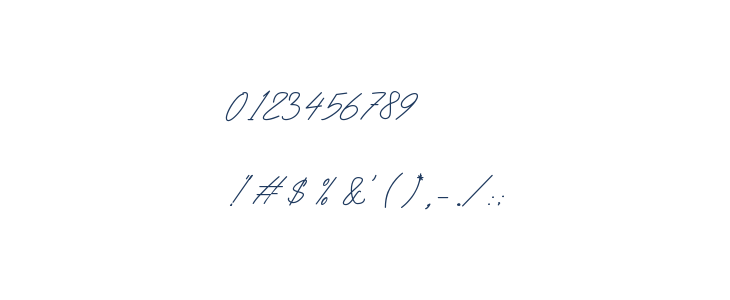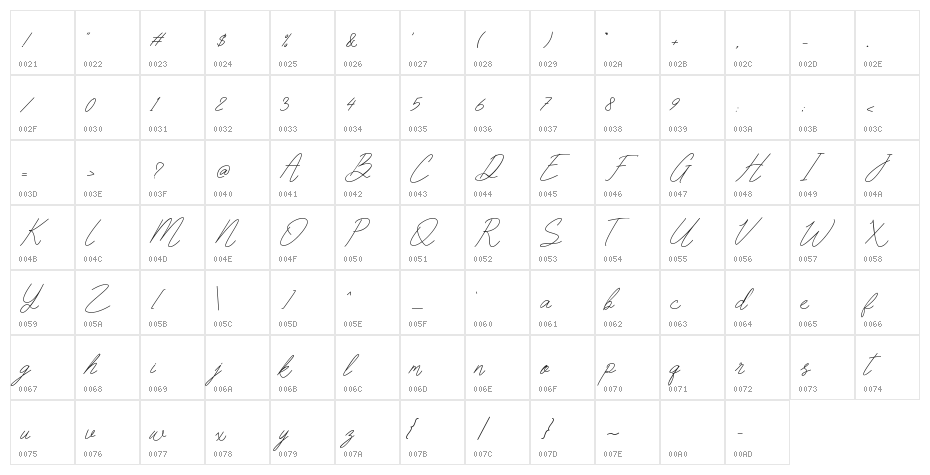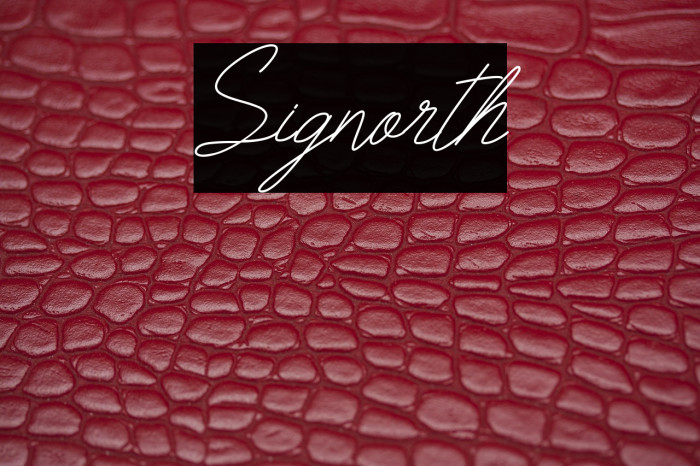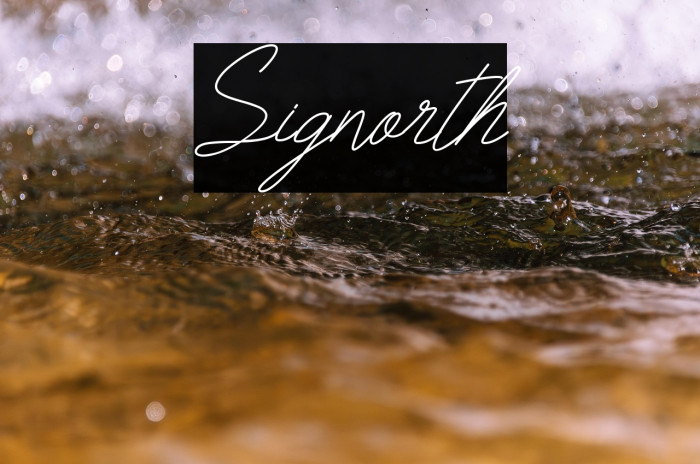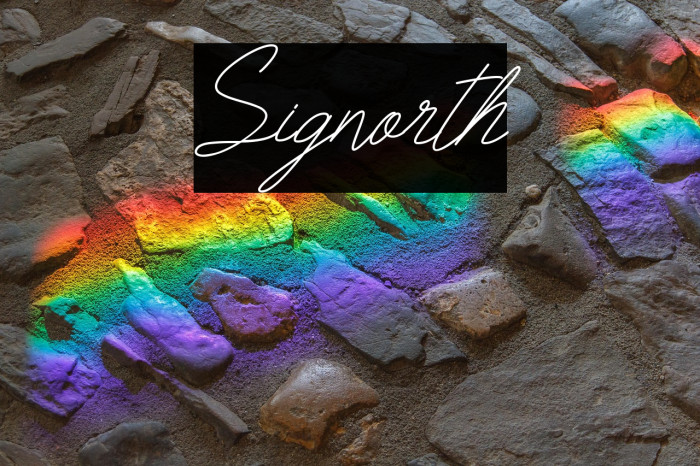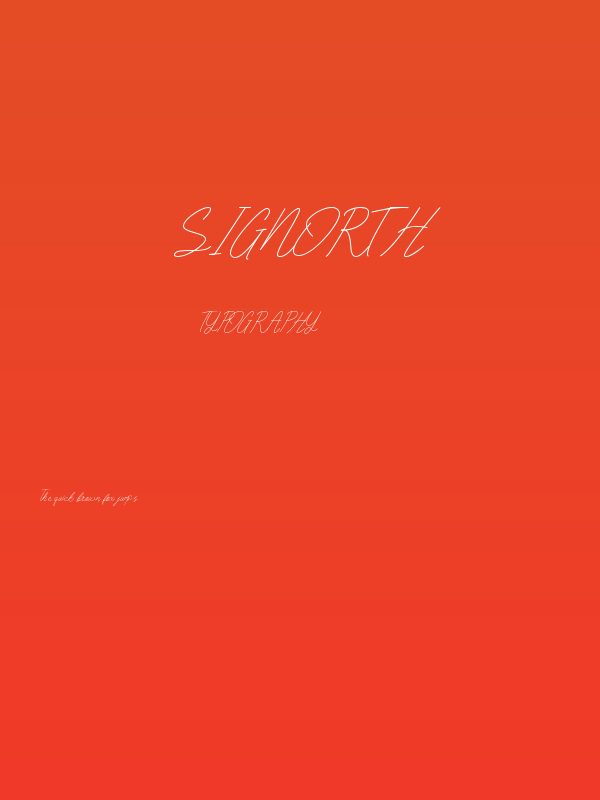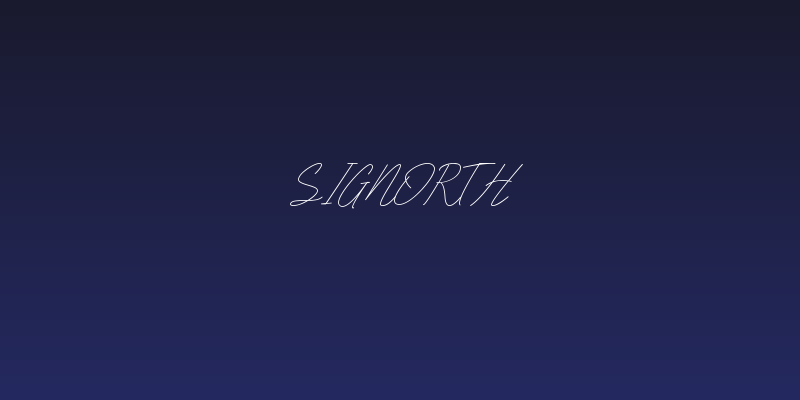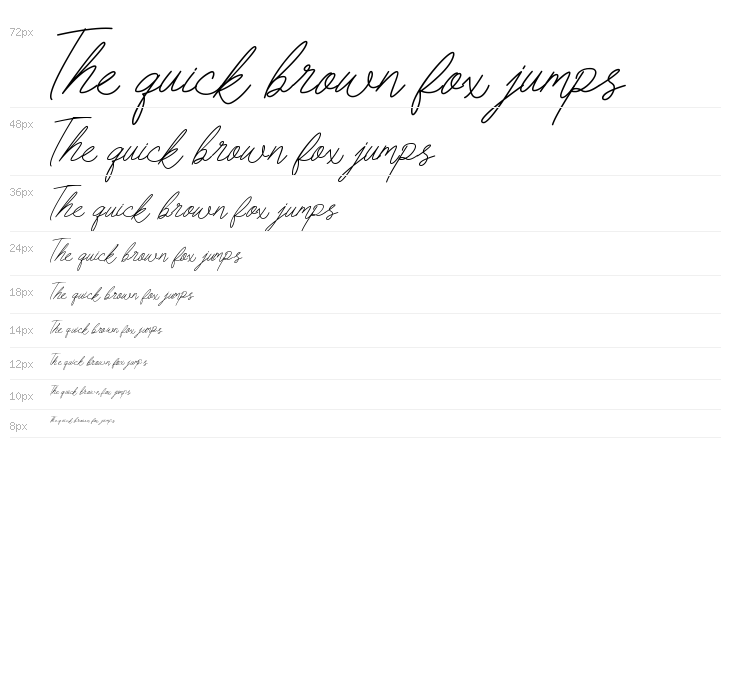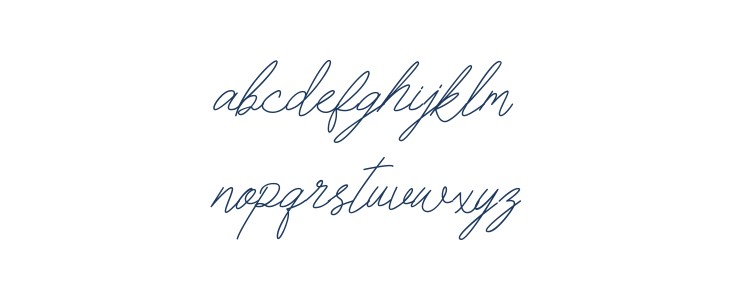
Signorth Font
Signorth Description
This font exudes elegance and sophistication with its flowing, cursive style. The characters are interconnected, creating a seamless and fluid appearance that mimics natural handwriting. The strokes are thin and delicate, with a consistent slant that adds to its graceful demeanor. The uppercase letters are slightly larger and more pronounced, while the lowercase letters maintain a uniform height, enhancing readability. Numbers and special characters are crafted with the same attention to detail, ensuring a cohesive look across all text elements. This font is ideal for projects that require a personal touch, such as invitations, greeting cards, or branding materials where a handwritten feel is desired.
| Overall Style | Elegant |
| Use Case | Invitations, Personal Branding, Greeting Cards |
| Proposed Projects | Ideal for wedding invitations, personal branding, greeting cards, and elegant stationery. |